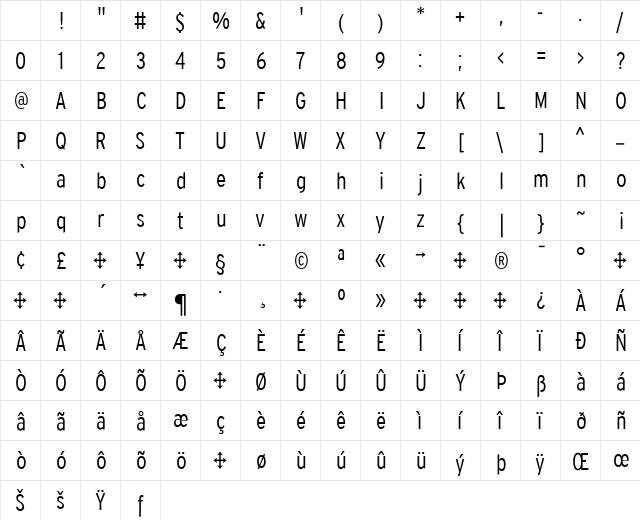
Interstate-LightCondensed is a composed and adaptable typeface that performs quietly and consistently across a wide range of design contexts. Its slender proportions lend an understated elegance to any composition. Its narrow stance lets it pack a punch even in space-constrained designs.
Who designed the Interstate-LightCondensed Regular font?
This font was published by Copr. Tobias Frere-Jones. Designed by Tobias Frere-Jones. Produced by The Font Bureau, Inc. Check the technical specs section for copyright and designer details.